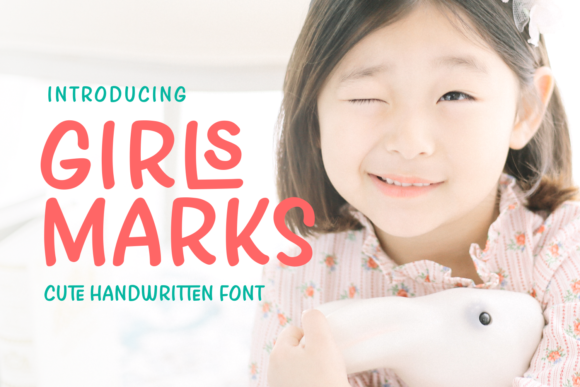
Introduction to Girls Marks Font
Girls Marks is a cute, handwritten font with a smooth look and feel.
Girls Marks comes in two, beautiful variations which gives you lots of options to play with and create the perfect design .
Key Features of Girls Marks Font
Why Choose Girls Marks Font?
Girls Marks Font offers exceptional quality and versatility, making it a valuable addition to your design toolkit. Whether you’re creating for personal projects or commercial use, Girls Marks Font delivers professional results.